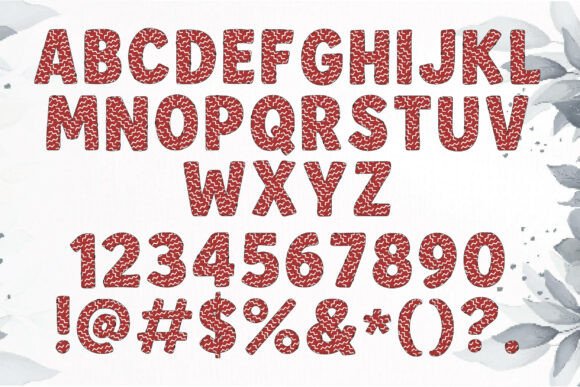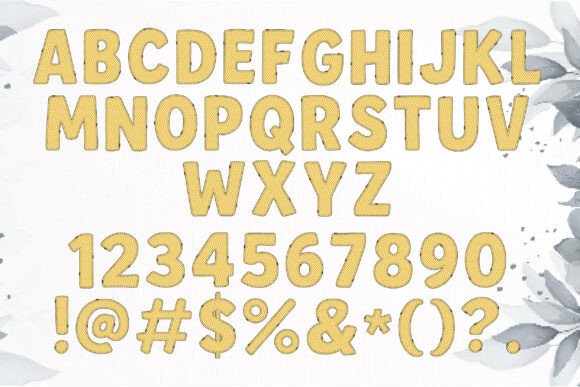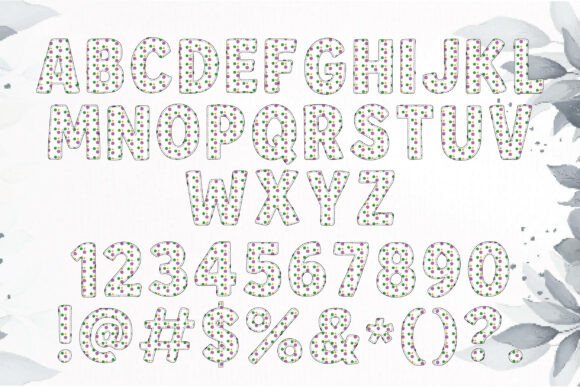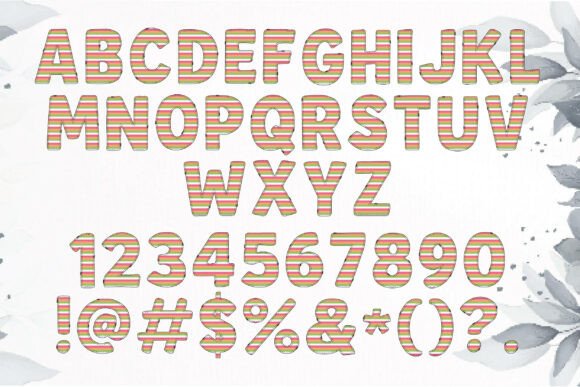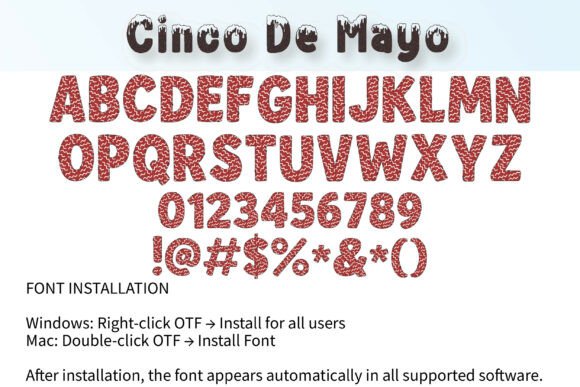
Cinco De Mayo Font: Add a Vibrant Touch to Your Designs with this Colorful Alphabet
Cinco De Mayo, a festive celebration of Mexican culture, is just around the corner, and what better way to make your designs stand out than with a vibrant and eye-catching font? Look no further than the Cinco De Mayo Colorful Alphabets Set, a stunning font bundle that will add a bold and lively touch to your creative projects.
Inspired by Mexican Culture and Festive Celebrations
This colorful alphabet is inspired by the rich and vibrant culture of Mexico, making it perfect for designers and crafters looking to add a touch of fiesta to their work. The Cinco De Mayo Colorful Alphabets Set is a unique and creative way to celebrate the holiday, and its bold and playful design is sure to capture the attention of your audience.
Whether you’re designing party invitations, festive posters, or themed decorations, this font bundle is ideal for a wide range of creative projects. Here are some ideas to get you started:
- Cinco De Mayo party designs
- Mexican-themed invitations
- Festive posters and flyers
- T-shirt and apparel designs
- Sublimation projects
- Stickers and planner designs
Why Choose the Cinco De Mayo Colorful Alphabets Set?
So why choose this font bundle over others? Here are just a few reasons why the Cinco De Mayo Colorful Alphabets Set stands out:
- Unique and eye-catching design: This font bundle features a bold and playful design that’s sure to capture the attention of your audience.
- Inspired by Mexican culture: This font is inspired by the rich and vibrant culture of Mexico, making it perfect for designers and crafters looking to add a touch of fiesta to their work.
- Versatile: This font bundle is perfect for a wide range of creative projects, from party invitations to social media graphics.
Tips for Using the Cinco De Mayo Colorful Alphabets Set
Here are a few tips for using the Cinco De Mayo Colorful Alphabets Set in your designs:
- Experiment with different colors: This font bundle features a range of bright and bold colors, so don’t be afraid to experiment and find the perfect combination for your design.
- Pair with other festive fonts: Why not pair this font with other festive fonts to create a truly unique and eye-catching design?
- Add some flair with graphics: Consider adding some festive graphics, such as piñatas or sombreros, to really make your design pop.
If you’re looking for a unique and eye-catching font to add a touch of fiesta to your designs, look no further than the Cinco De Mayo Colorful Alphabets Set. This font bundle is perfect for designers and crafters of all skill levels, and its bold and playful design is sure to capture the attention of your audience. So why wait? Download the Cinco De Mayo Colorful Alphabets Set today and start creating vibrant and eye-catching designs that will make your audience go wild!
Whether you’re a seasoned designer or a crafter looking for a fun and creative way to celebrate Cinco De Mayo, this font bundle is sure to inspire. So go ahead, get creative, and add a touch of Mexican culture and festive celebrations to your designs with the Cinco De Mayo Colorful Alphabets Set.